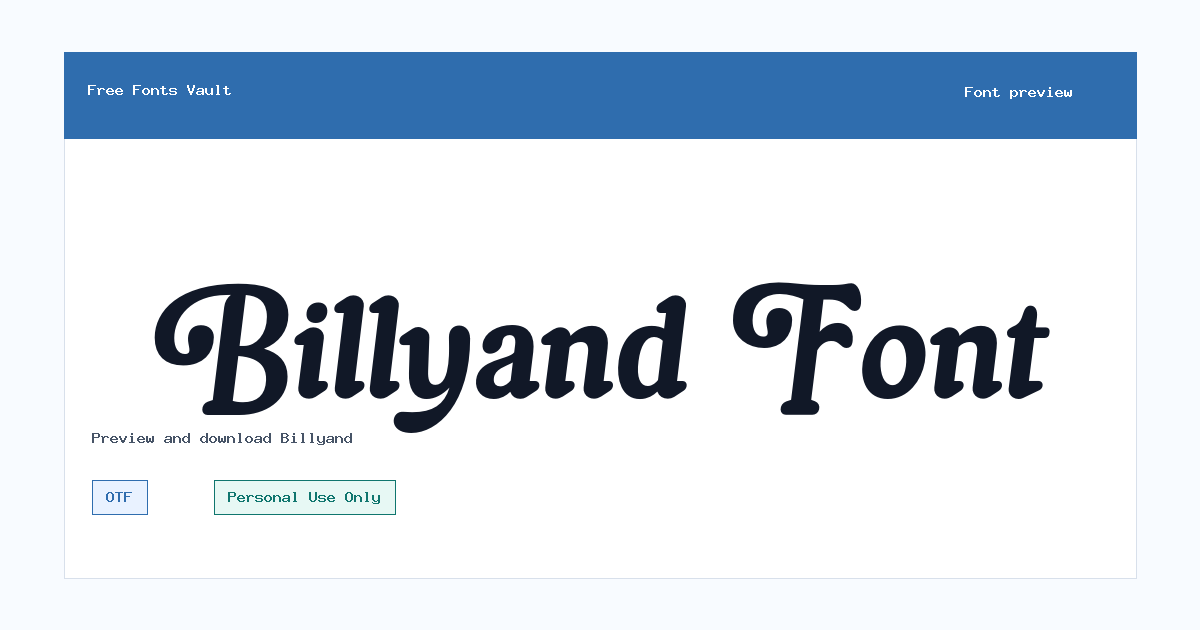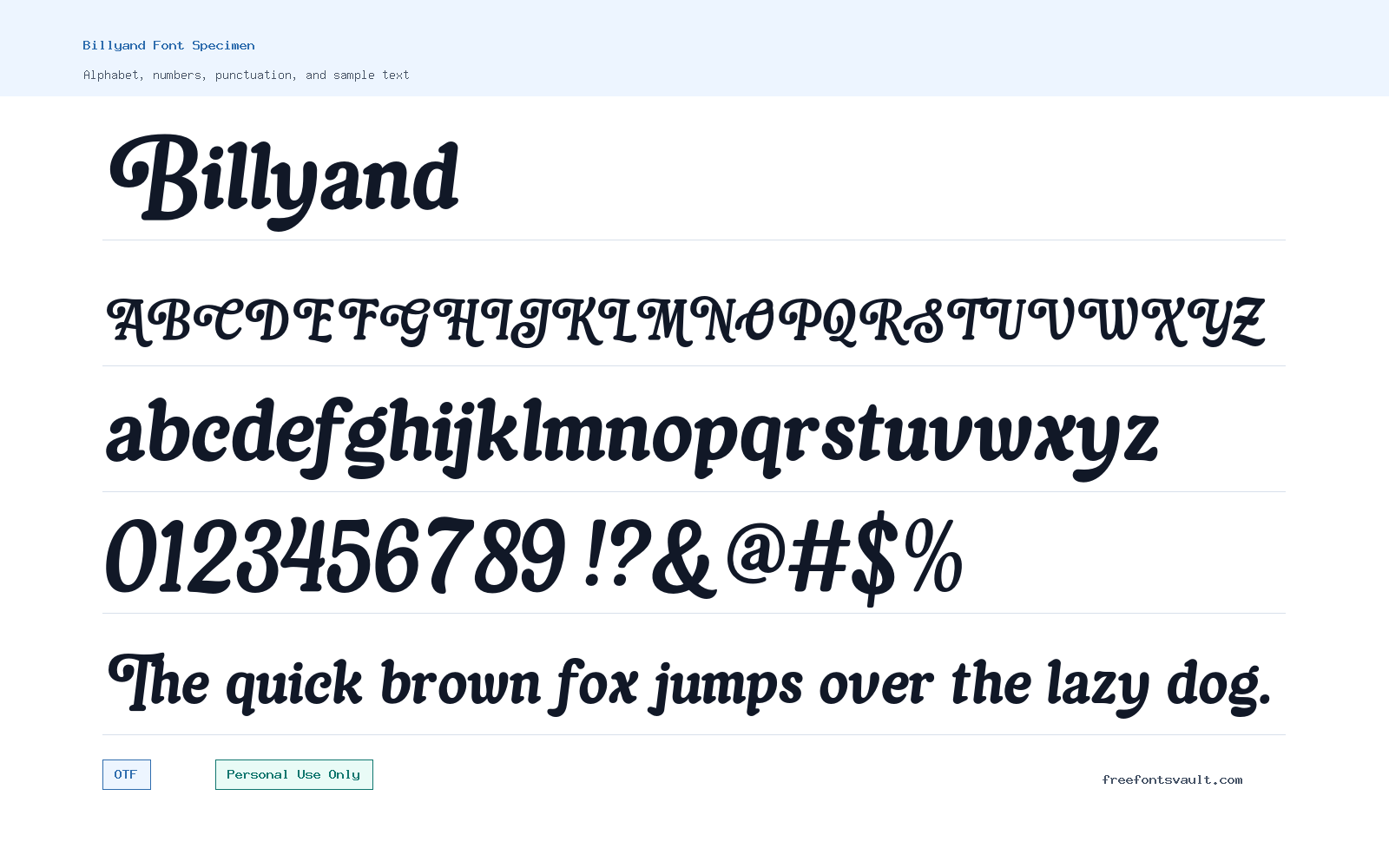
Billyand
Billyand font.
Billyand is a display font for short, attention-focused text where the lettering needs to carry the visual tone. It is best tested in headlines, logo drafts, poster titles, packaging mockups, and social graphics rather than long paragraphs.
About Billyand Font
For design work, start with Billyand as the main visual voice and keep the supporting typography simple. It can work well for logo concepts, poster headings, YouTube thumbnails, mood boards, invitations, merchandise mockups, and web hero sections, as long as the text stays short. If you are building a layout, pair it with a clean sans serif for body copy, product details, menus, captions, or any text that must be read quickly. Avoid using a decorative display face for dense paragraphs, small legal text, or interface labels, because readability can drop when the size gets too small.
Billyand is also useful for early web and branding mockups when you want to explore a stronger headline style before committing to a final licensed font. Test it across a few realistic situations: a two-word logo, a longer poster line, a small social media title, and a dark-on-light plus light-on-dark version. Check spacing around tricky letter pairs, make sure the font still reads at mobile sizes, and compare it with a plain fallback typeface. These small checks help you decide whether the style supports the message or starts to distract from it.
- Display-focused style suited to short headlines, titles, branding tests, and visual mockups.
- Single regular variant, which keeps the family simple but means weight and style changes may need support from other fonts.
- Works best when previewed at larger sizes where spacing, letter shape, and title readability can be judged clearly.
- Logo drafts and brand direction mockups
- Social media images, thumbnails, and banners
- Packaging concepts and label mockups
- Invitation headings and decorative name treatments
- Website hero text or landing page concept designs
- Personal projects where a display font is needed for short wording
Use Billyand as a headline or display accent, not as a full reading font. Keep the text short, increase the size, and give the letters enough space to breathe. For logos, test both one-line and stacked versions, then check whether the word remains clear at small sizes. For posters and web mockups, pair it with a neutral sans serif or a restrained serif so the supporting text does not compete with the display lettering. If you need multiple weights, italics, or a complete brand system, combine Billyand with a broader font family for the practical parts of the design.
What kind of font is Billyand?
Billyand is presented as a display font. That means it is better suited to short, visible text such as titles, logos, posters, and mockups than to long paragraphs.
Does Billyand include multiple weights?
Only a regular variant is listed. If your project needs bold, light, italic, or several matching styles, you may need to pair Billyand with another font family.
What should I pair with Billyand?
Pair it with a simple sans serif for body text, captions, navigation, and small details. A restrained serif can also work if you want a more editorial layout, but keep the supporting font quiet so Billyand remains the main accent.
Is Billyand good for body text?
It is not the best choice for body text. Use it for short display settings and choose a more readable font for paragraphs, descriptions, forms, and small screen text.